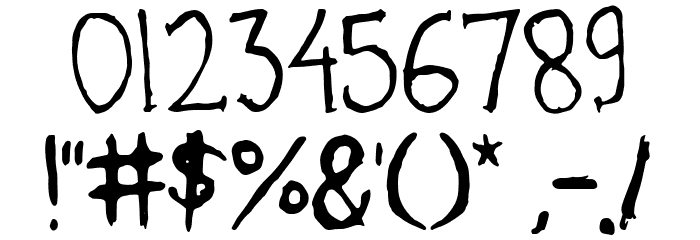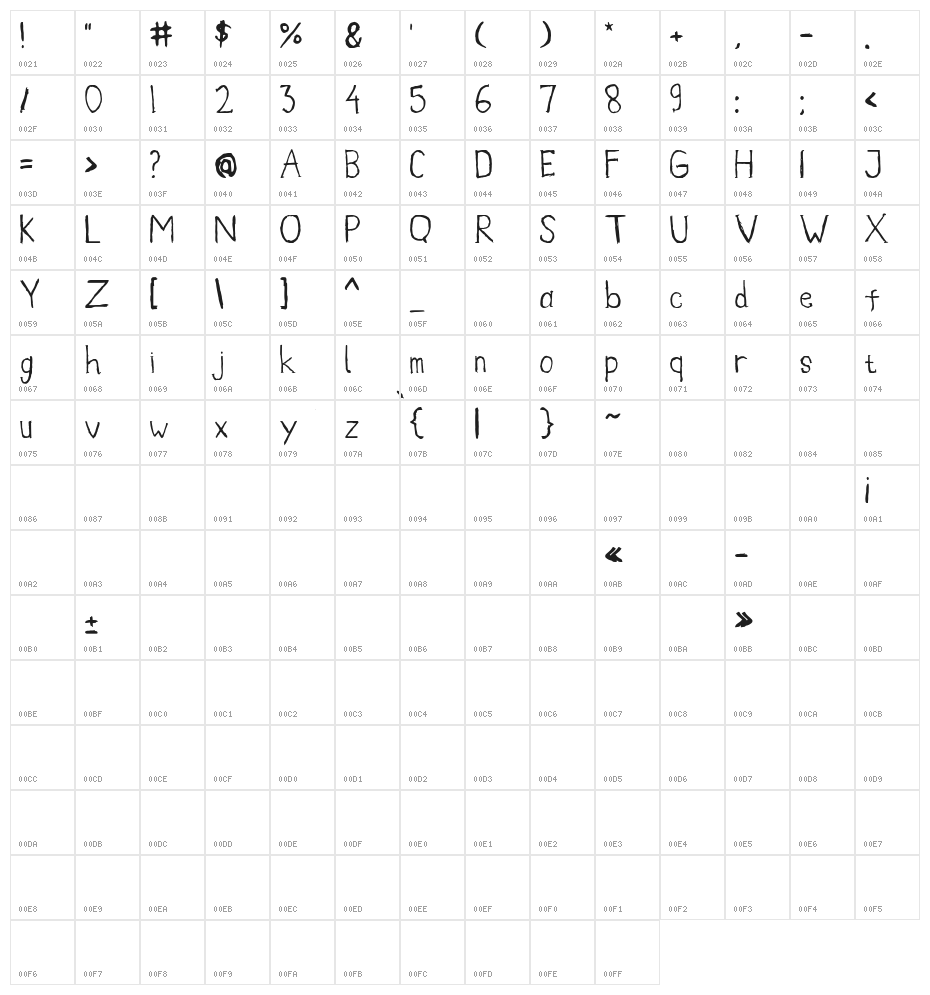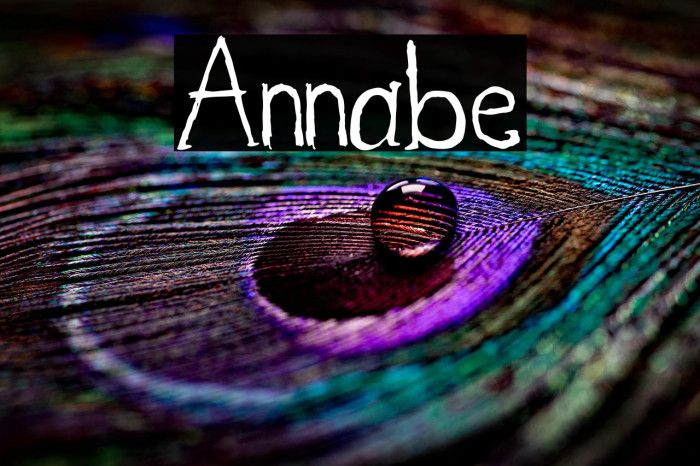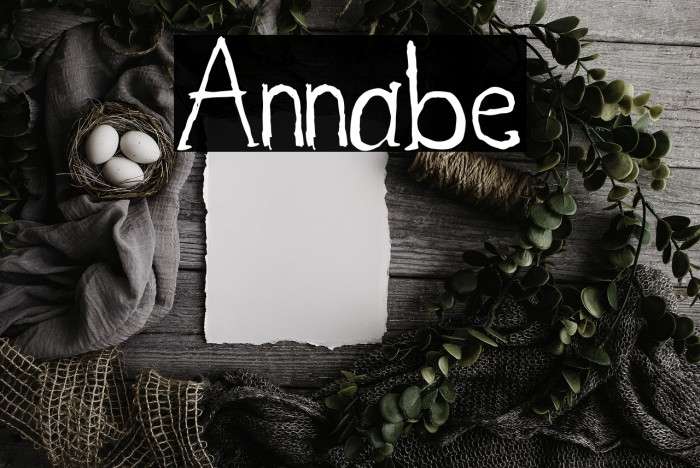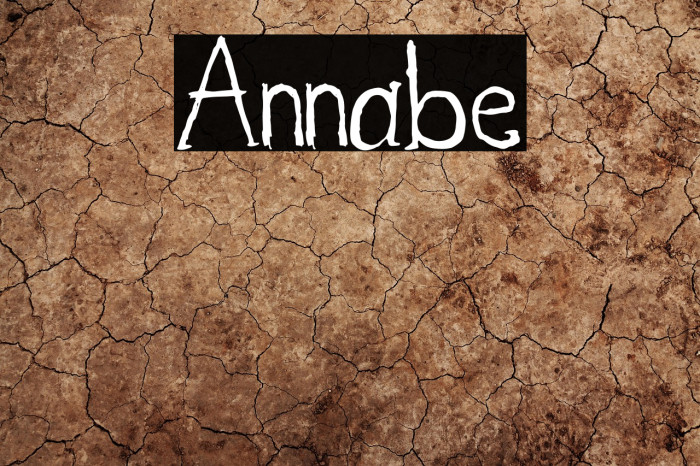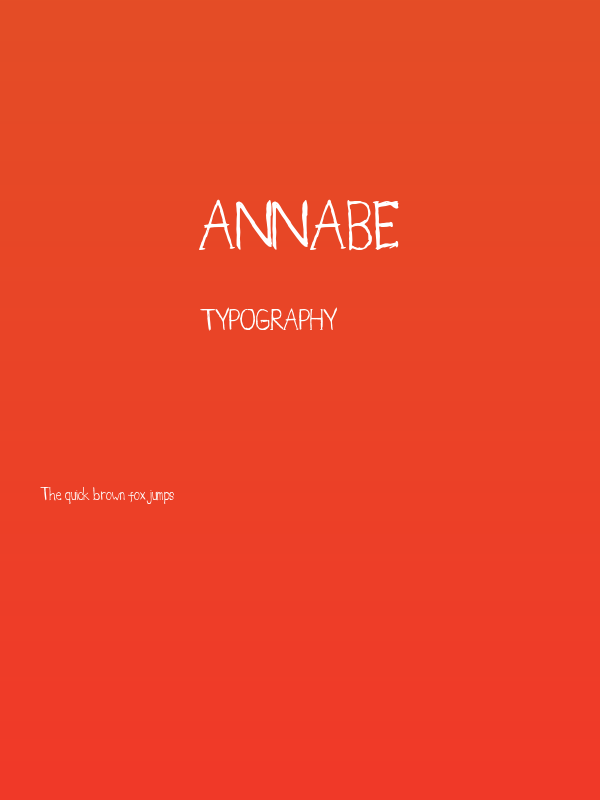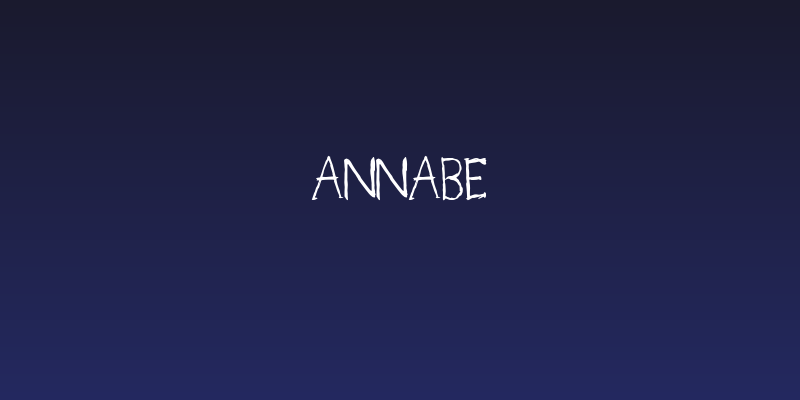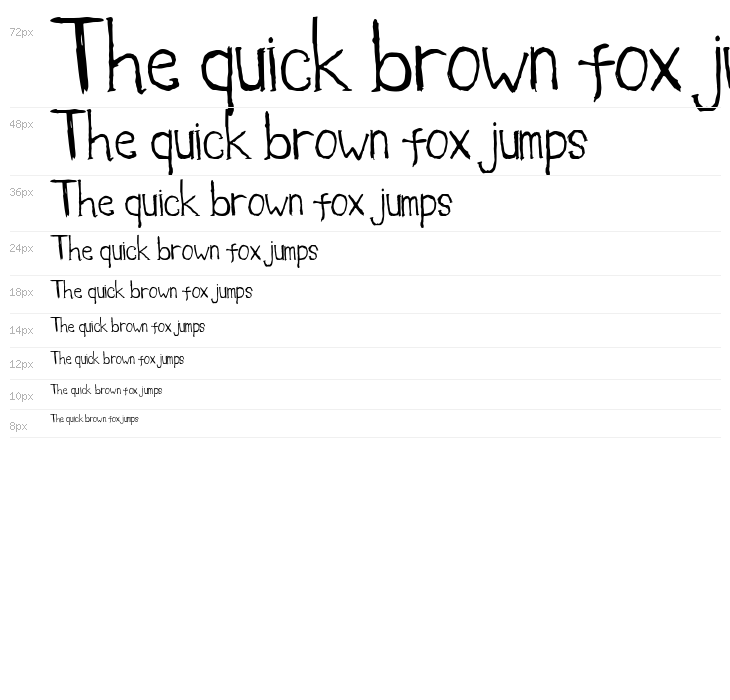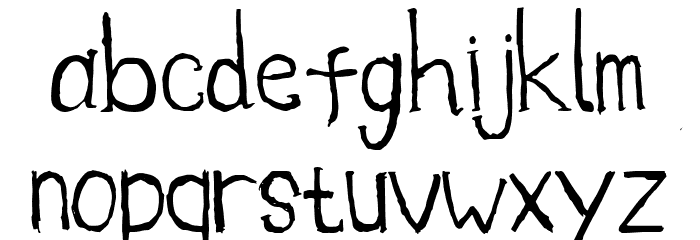
Annabe Font
Annabe Description
This font features a hand-drawn, organic style with uneven lines and a slightly rough texture, giving it a casual and artistic appearance. The letters are irregular in shape, with varying stroke thicknesses that add to its unique charm. The uppercase and lowercase letters maintain a consistent style, while the numerals and special characters complement the overall design. This font's playful and informal nature makes it ideal for creative projects that require a personal touch.
| Proposed Projects | Ideal for greeting cards, posters, children's books, and creative branding projects. |